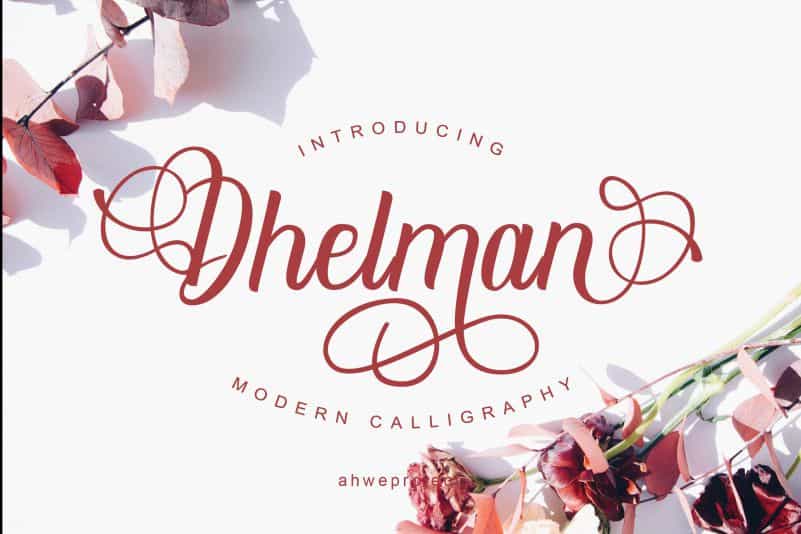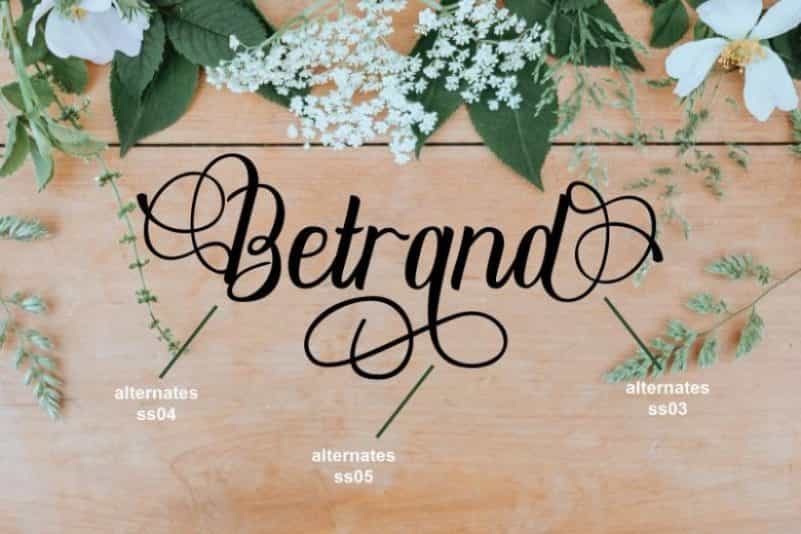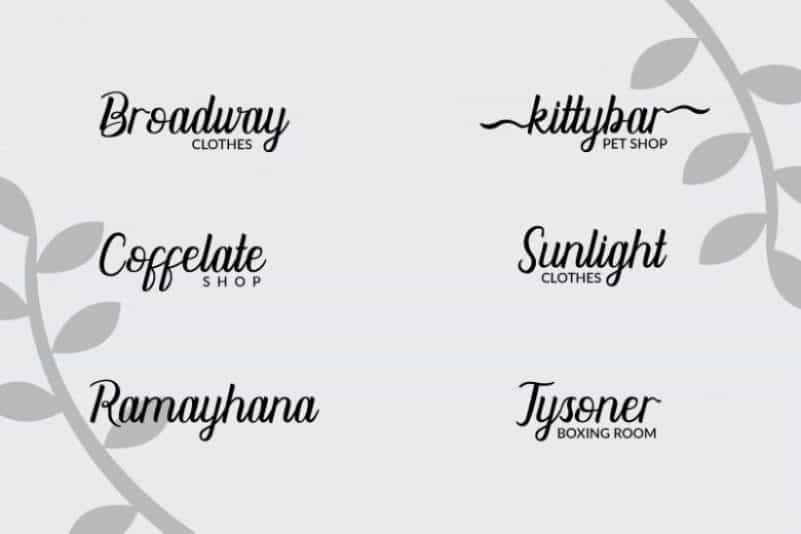
Dhelman is a script typeface created by Ahweproject. The beautiful curved lines and the optional initial and final swashes of this font make it perfect for invitations or any other projects where you want to create a romantic yet elegant atmosphere.